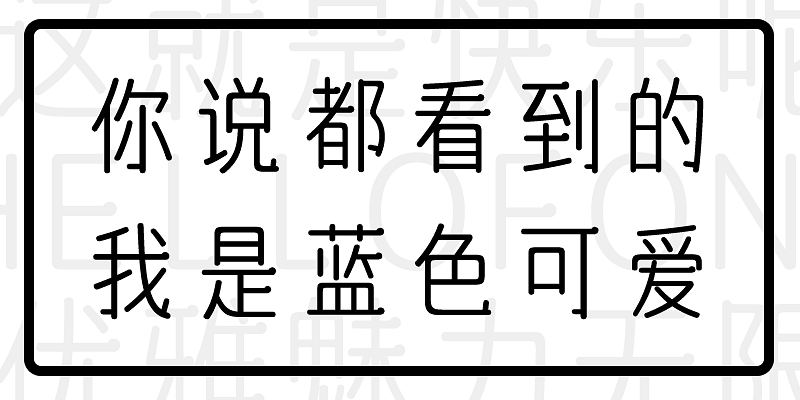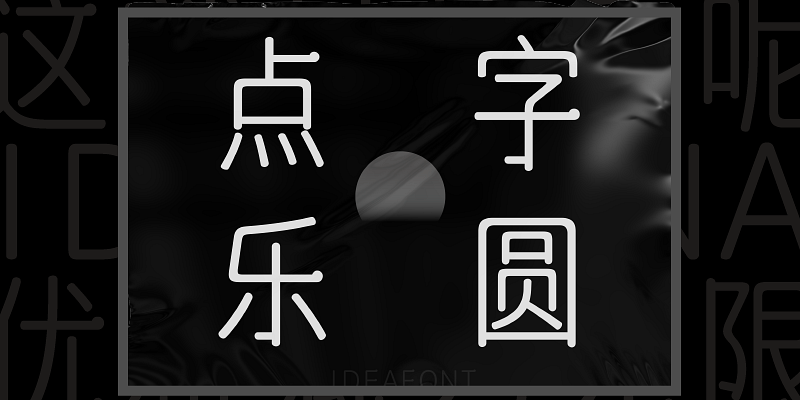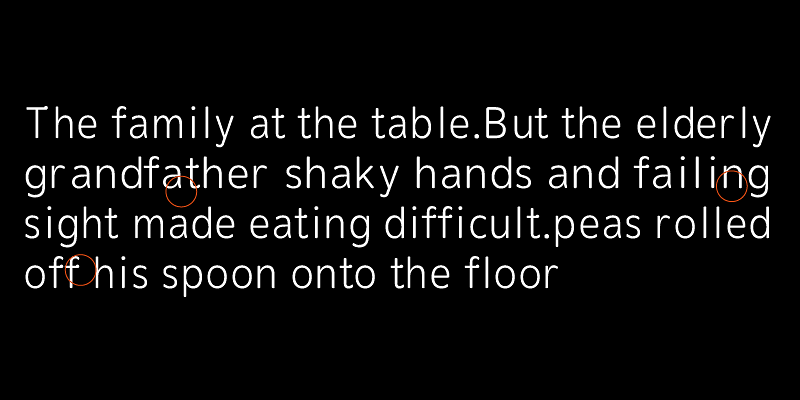
The design of the HelloFont ID LeYuanTi is based on Yuán Tǐ with dots at the end of the stroke. It looks slender and elegant, and its structure is compact and rigorous. Characteristics of Yuán Tǐ not only spice it up but also maximize the flexibility of lines and the beauty of glyphs.